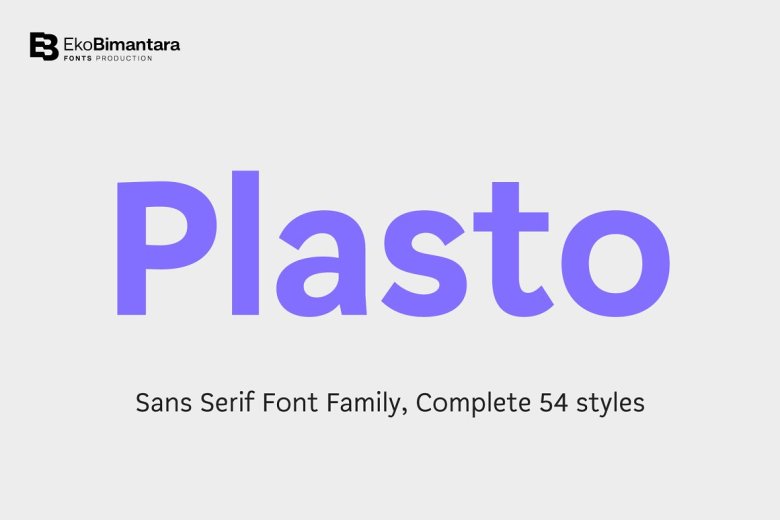
Plasto Font Family
Plasto Font
Plasto family is a whole grotesk sans serif. The quirky letterforms and its slight width variation made the typeface read as “plastic”, fun, playful in a graphic layout that was suitable for numerous design spaces, both informal or functional use large display headlines and also small text. Plasto complete family has 54 styles including two axes: Weight and Width It has a weight of 18 styles from Thin to Black, and a width can vary in 3 styles separately — condensed, normal and expanded. Plasto perfect for logo, branding, website, advertisement, banner, classifications of Logo(ex;company,title,h1), headers,h3 and h4. products, presentation and more.
Plasto Sans Serif Font Family